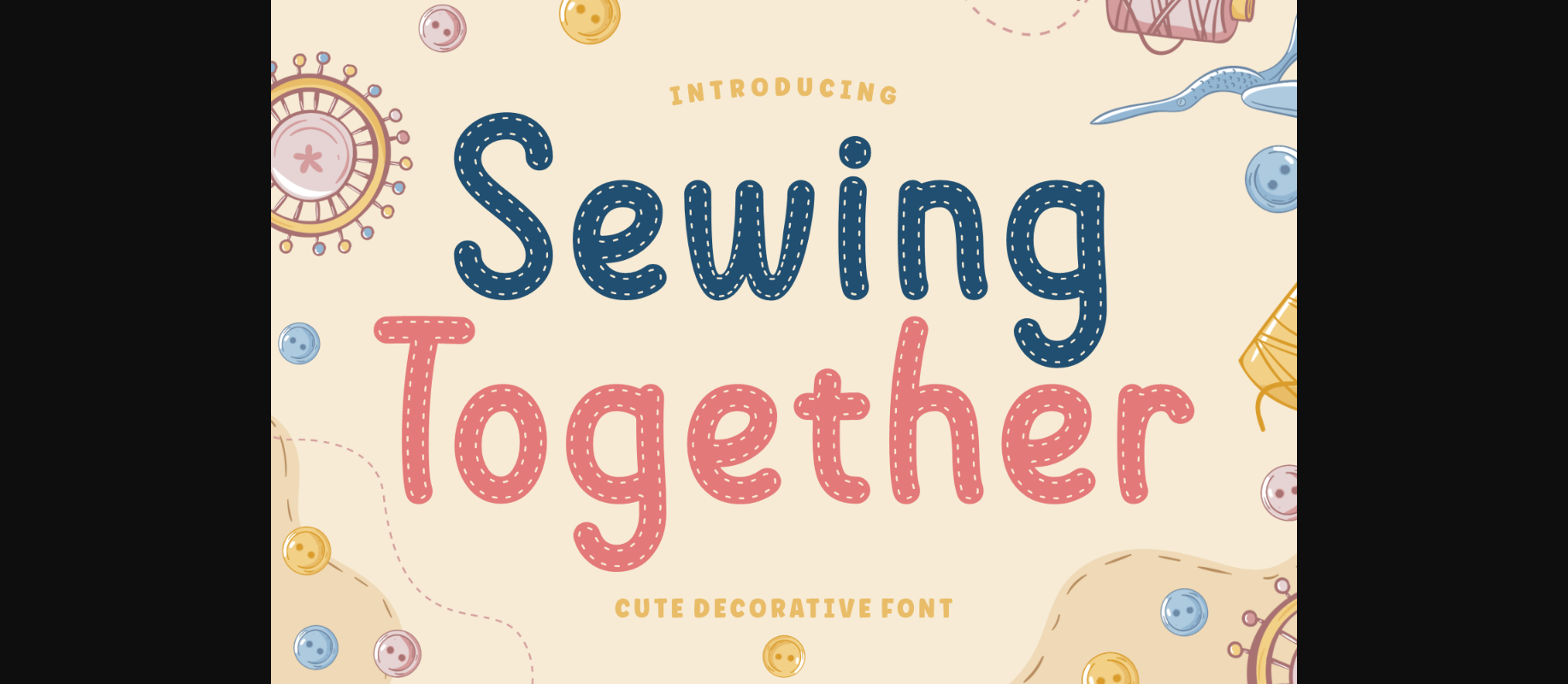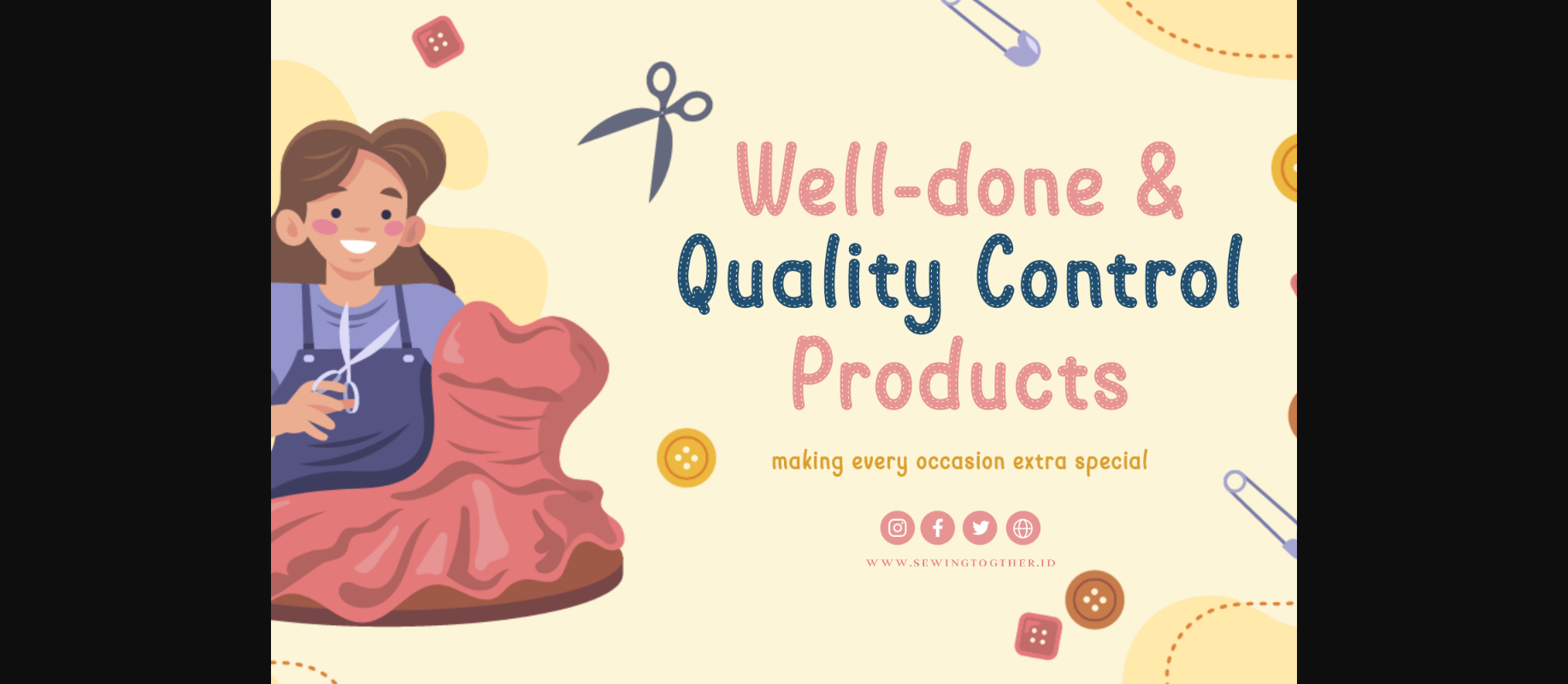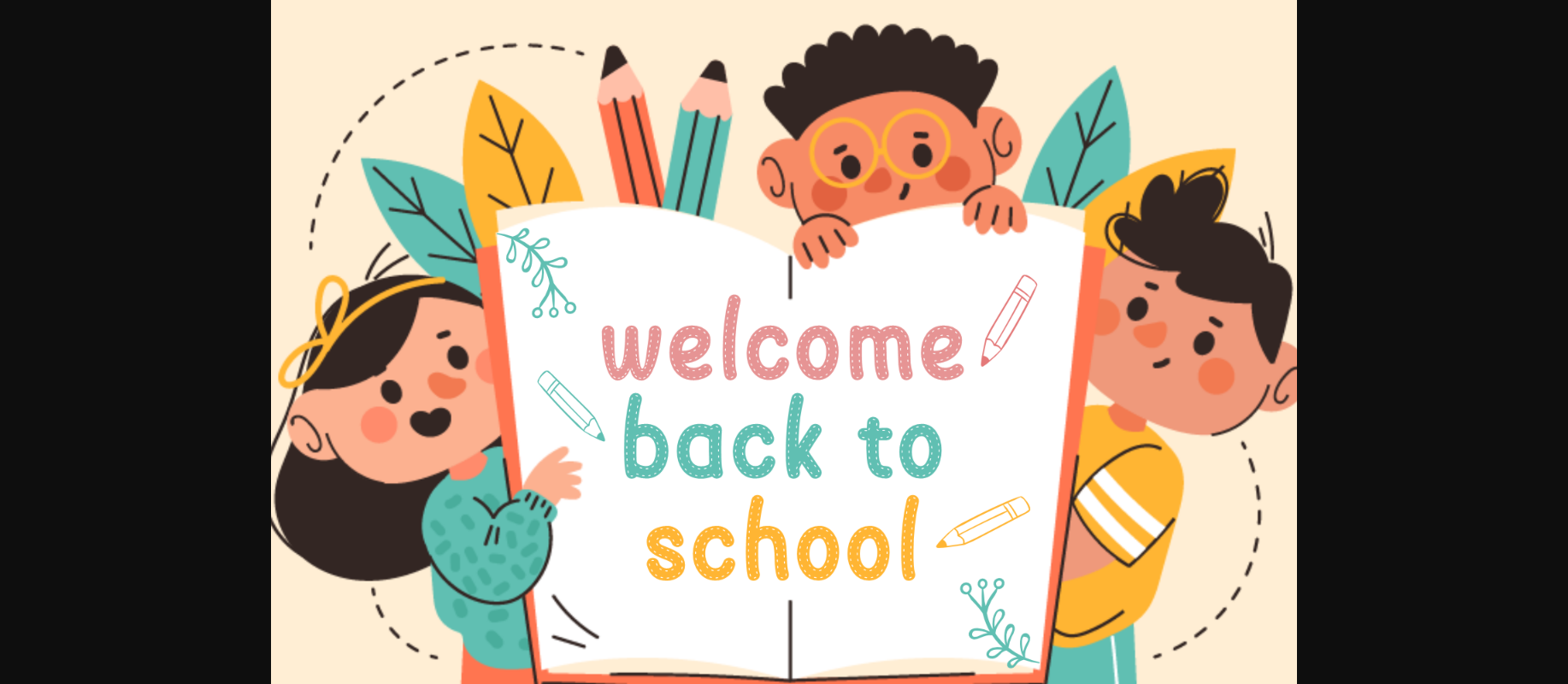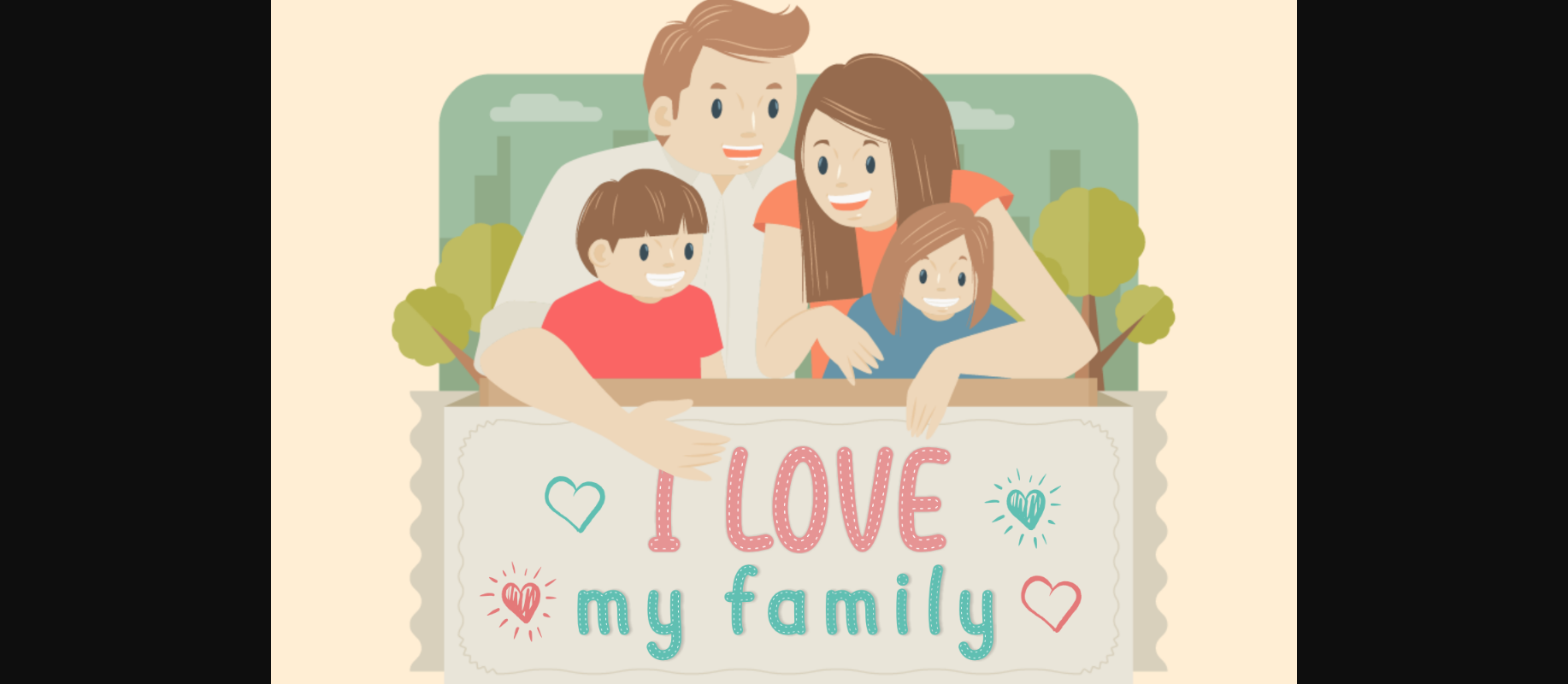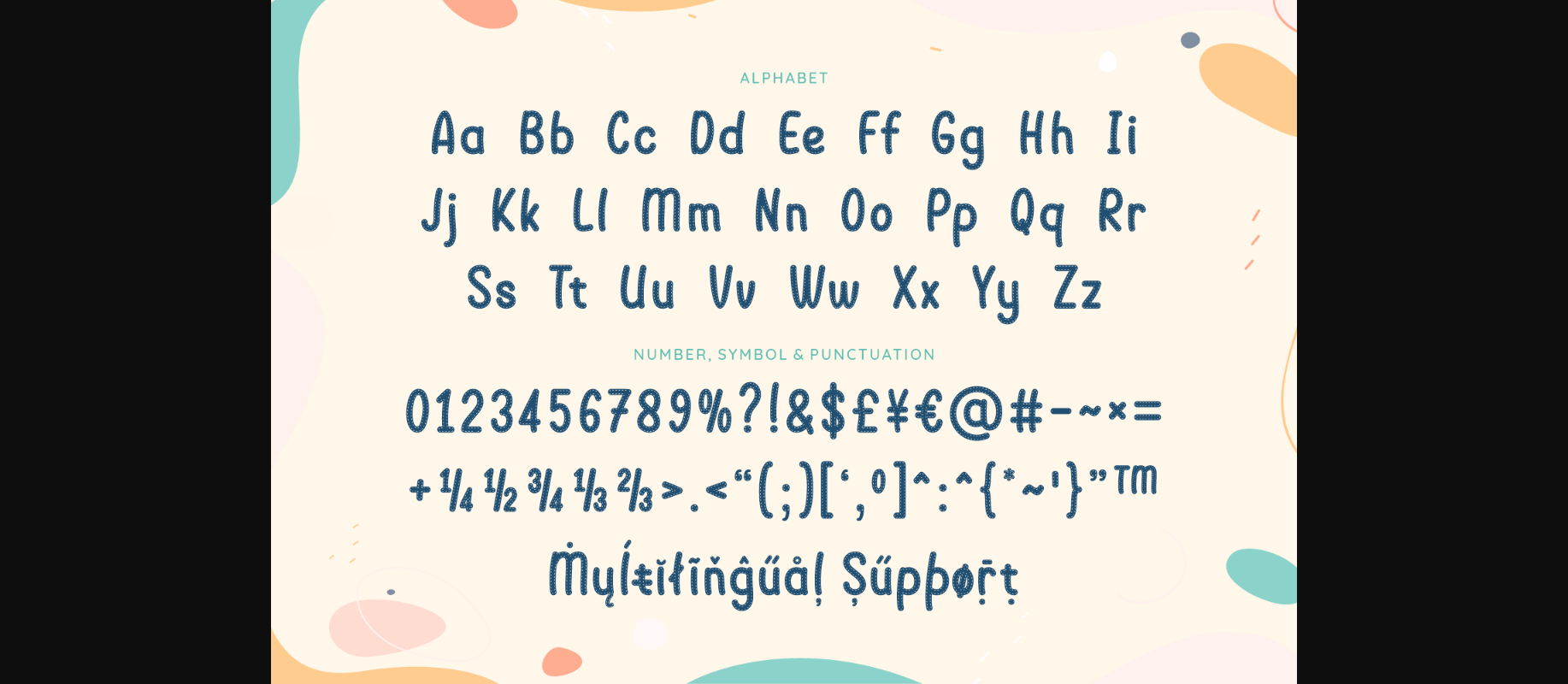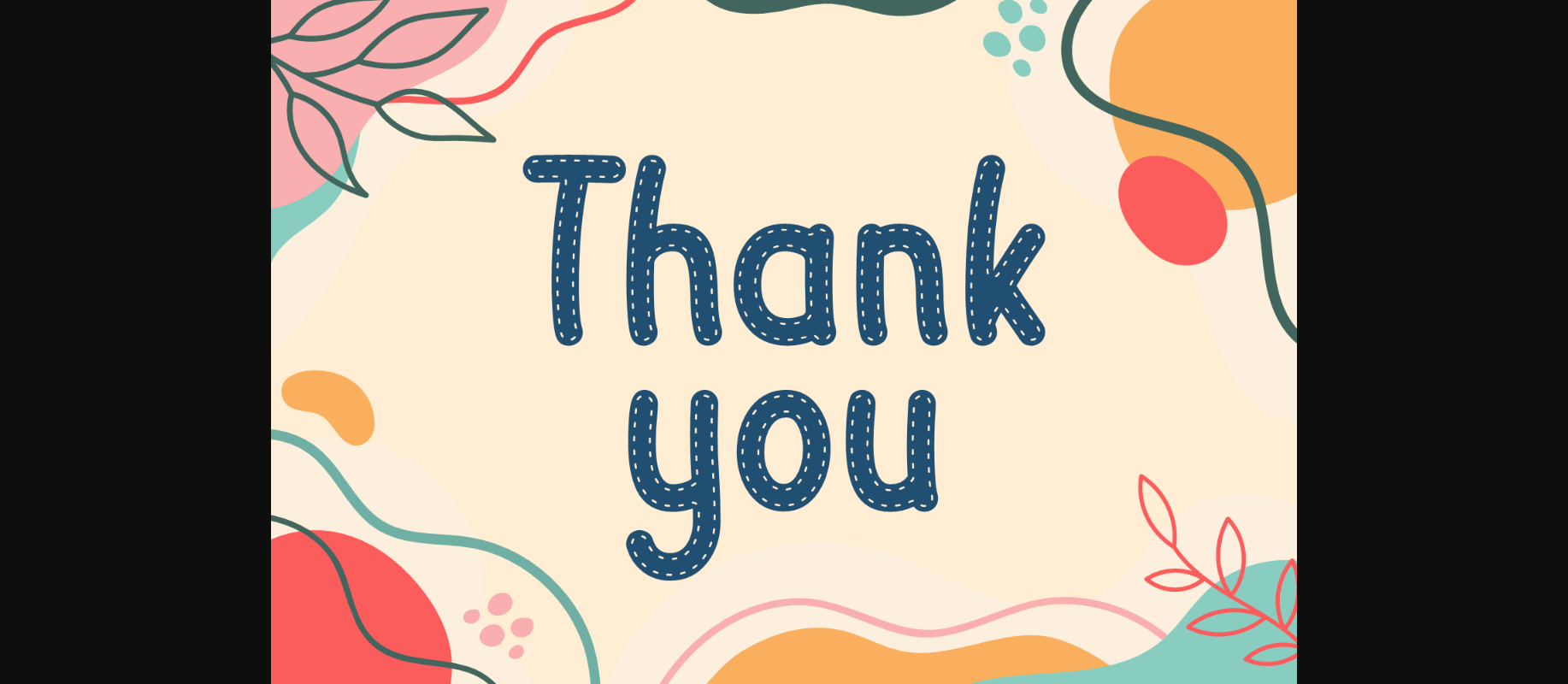
Sewing Together Font
About Sewing Together Font
Sewing Together is a fun and cute decorative font perfect for crafters. Add it confidently to your creative ideas and notice how it makes them come alive!